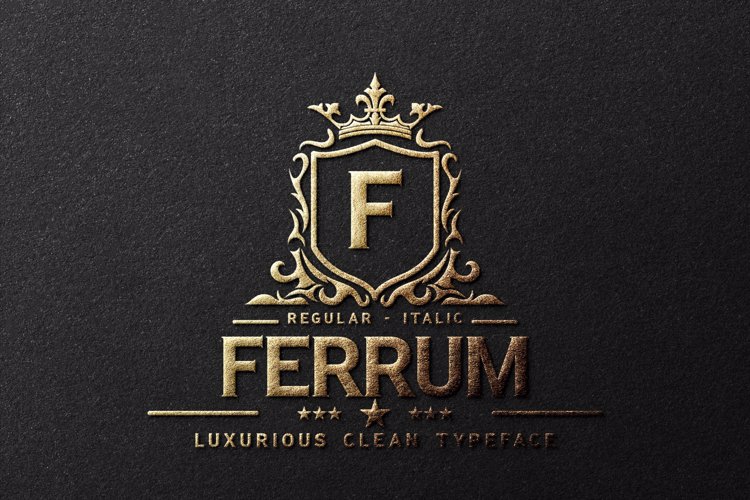
Ferrum Font
🎨 Font Name: Ferrum by Minimalist Art Studio
🎨 Font Description: Ferrum is a luxurious serif with multilingual support—perfect for upscale branding, elegant packaging, and editorial prestige.
✔ Complete Latin set + multilingual diacritics
✔ Alternates, stylistic sets & ligatures
✔ Numbers, small caps, and extended punctuation
✔ Bonus italics and family styles